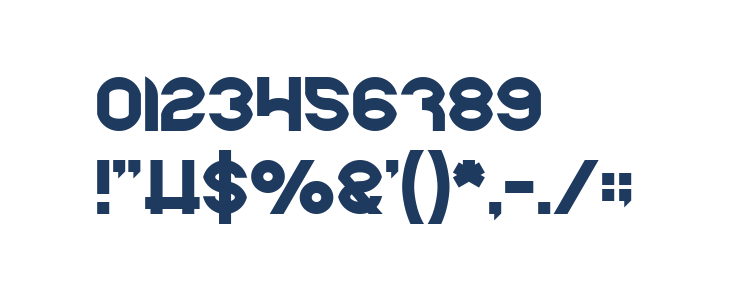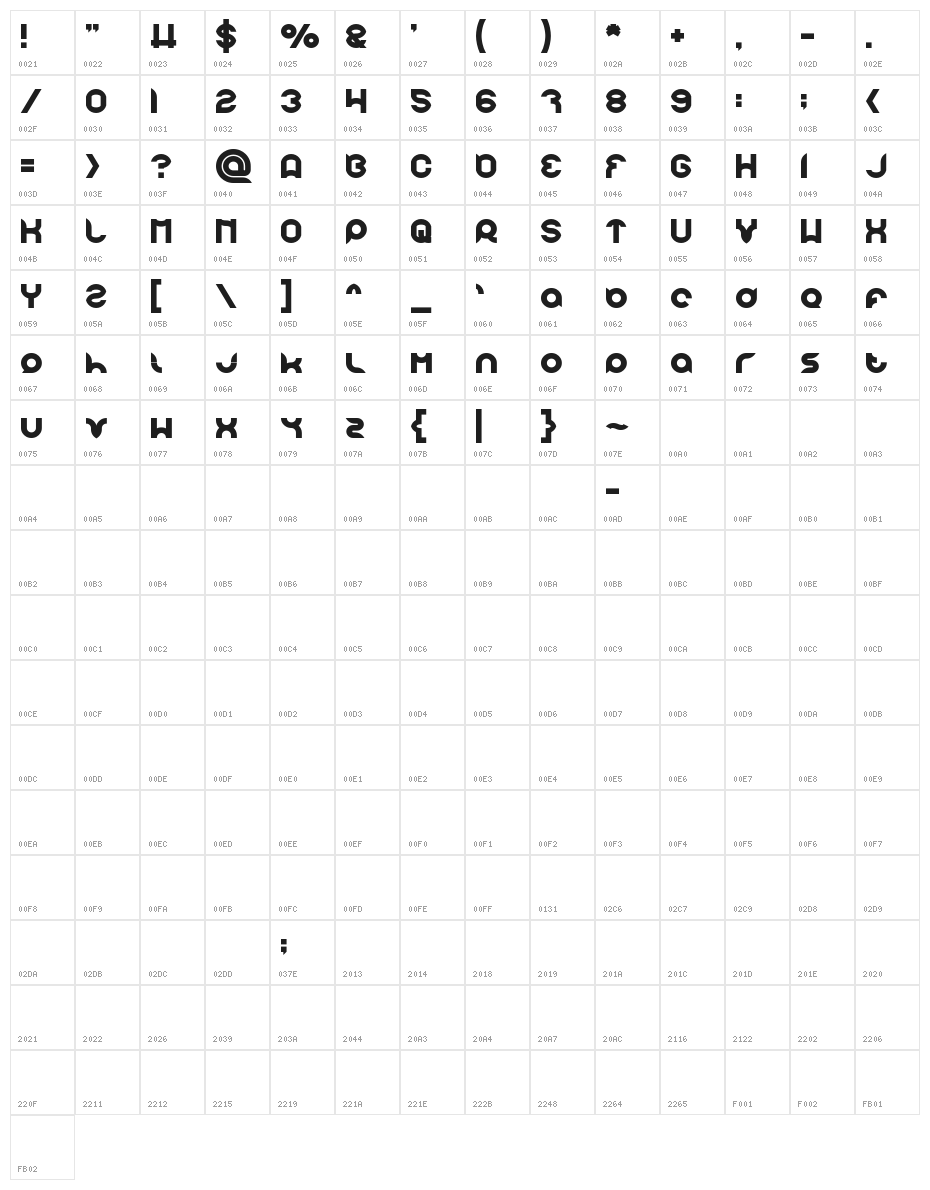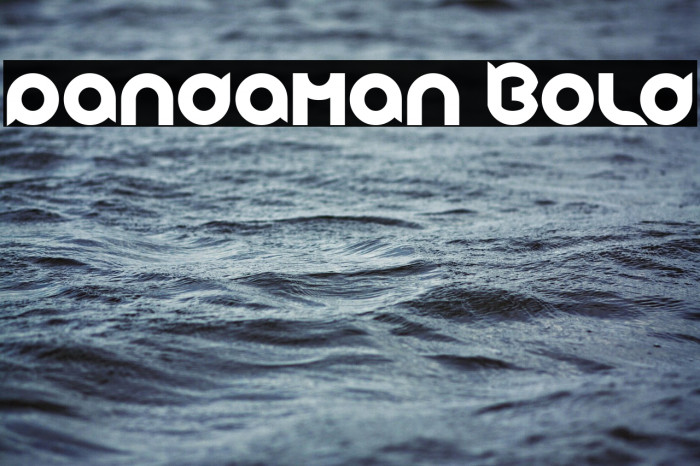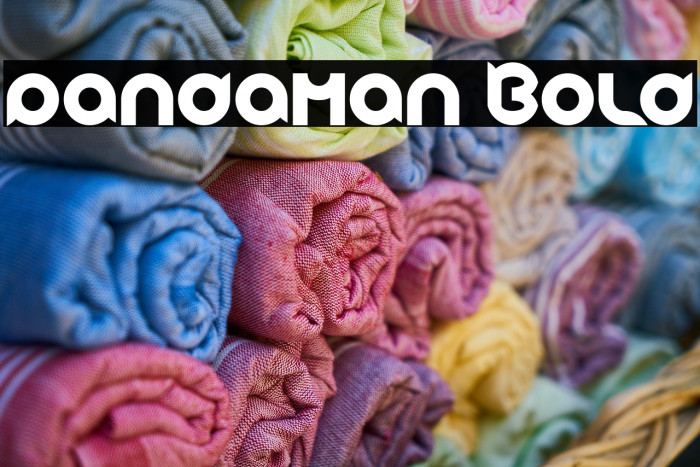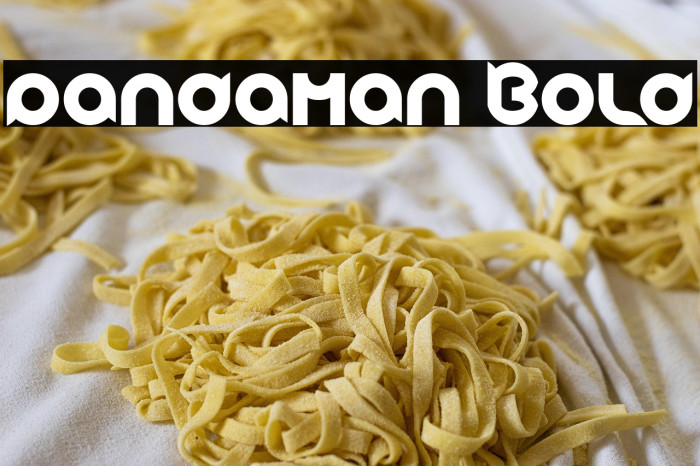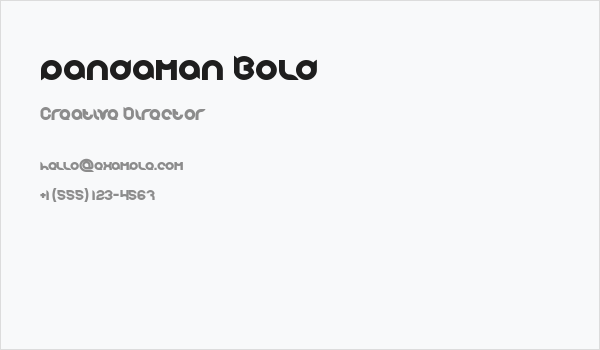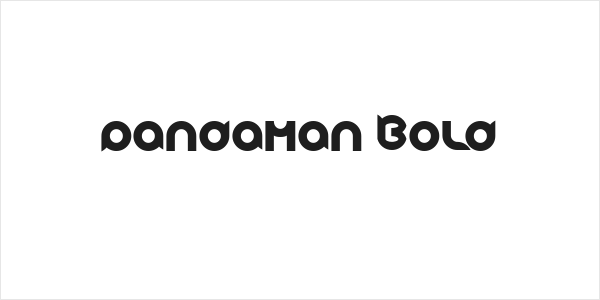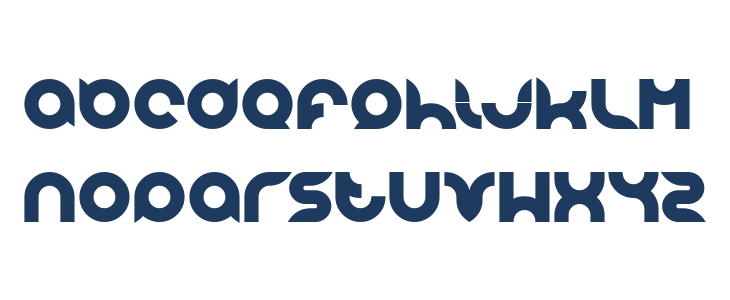
pandaman Bold Font
pandaman Bold Description
This font features a bold, geometric design with a futuristic flair. The characters are constructed with thick, uniform strokes that create a strong visual impact. Each letter is crafted with a unique, rounded shape that adds a playful yet modern touch. The uppercase and lowercase letters maintain a consistent style, while the numerals and special characters complement the overall aesthetic. The font's boldness and distinctiveness make it ideal for attention-grabbing designs.